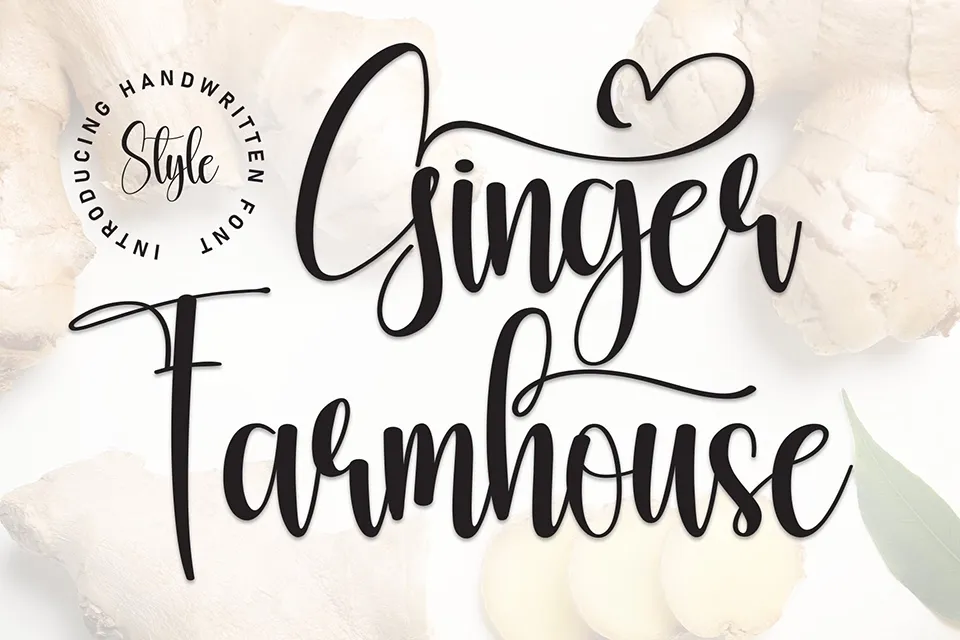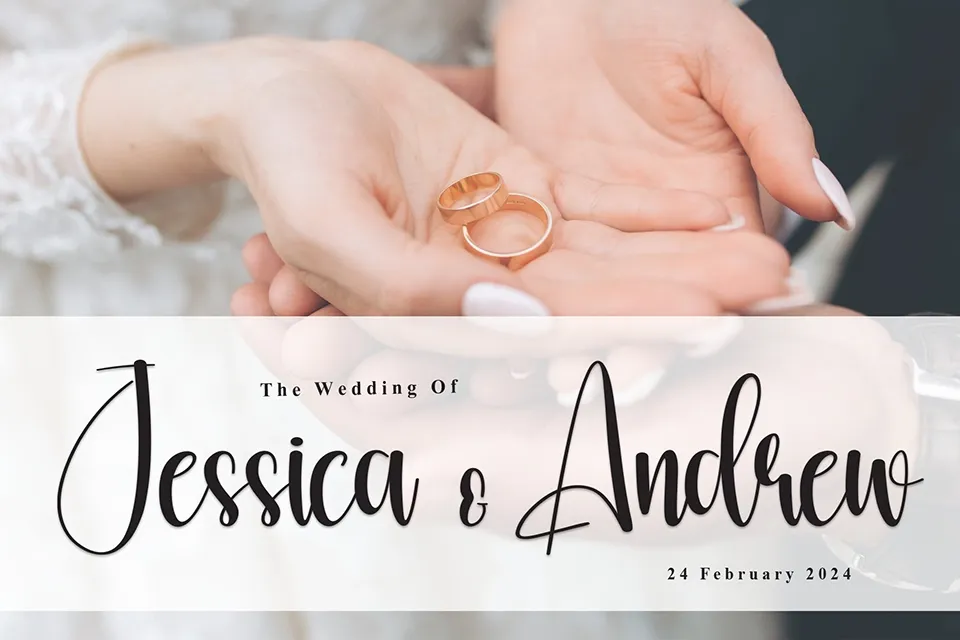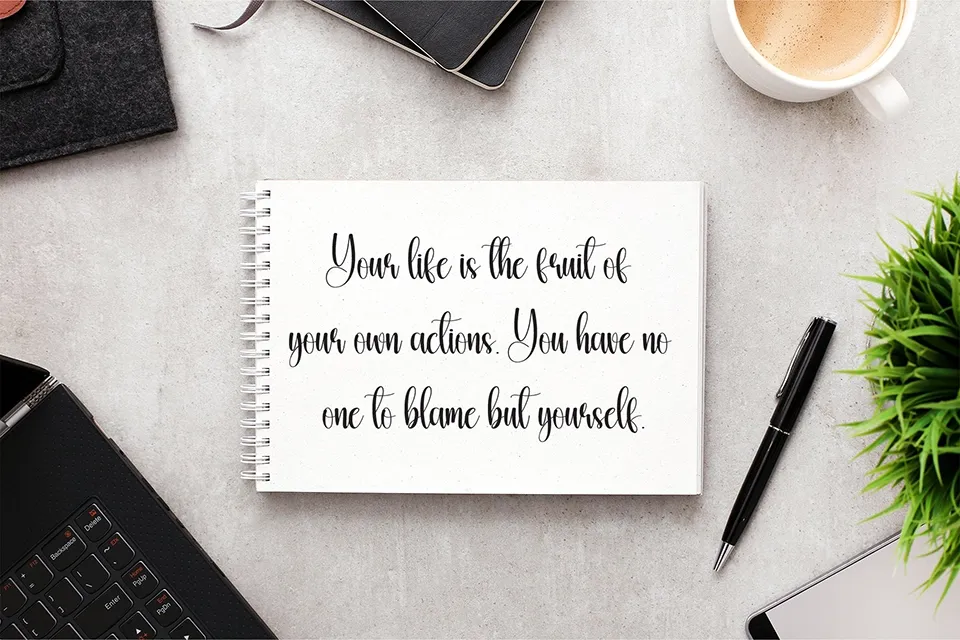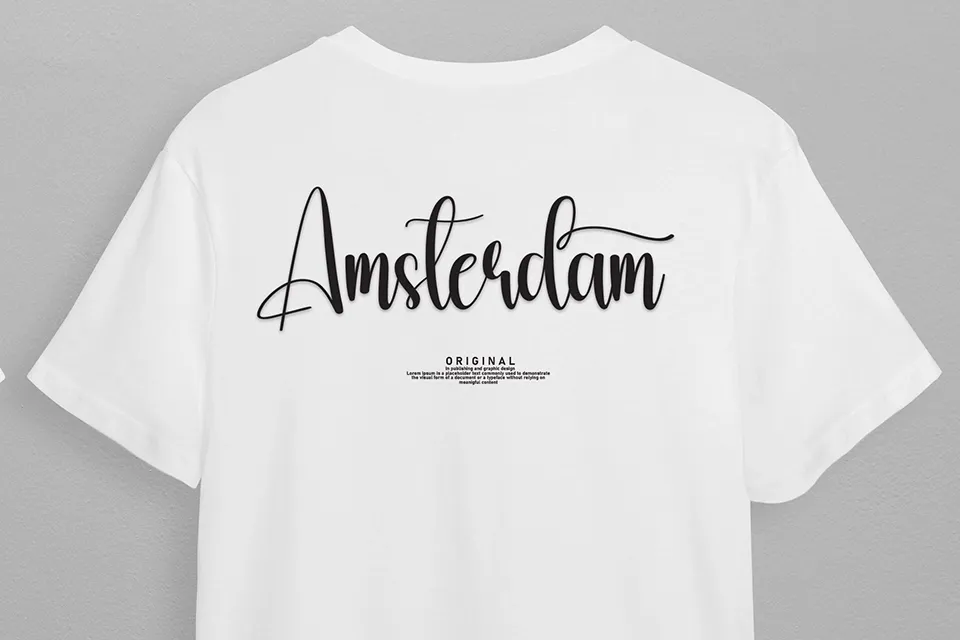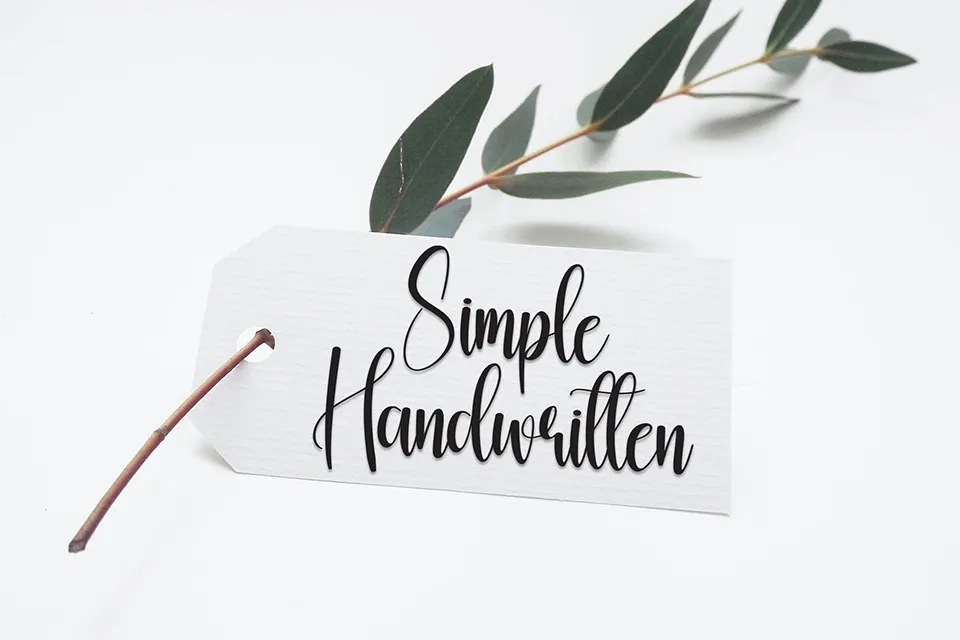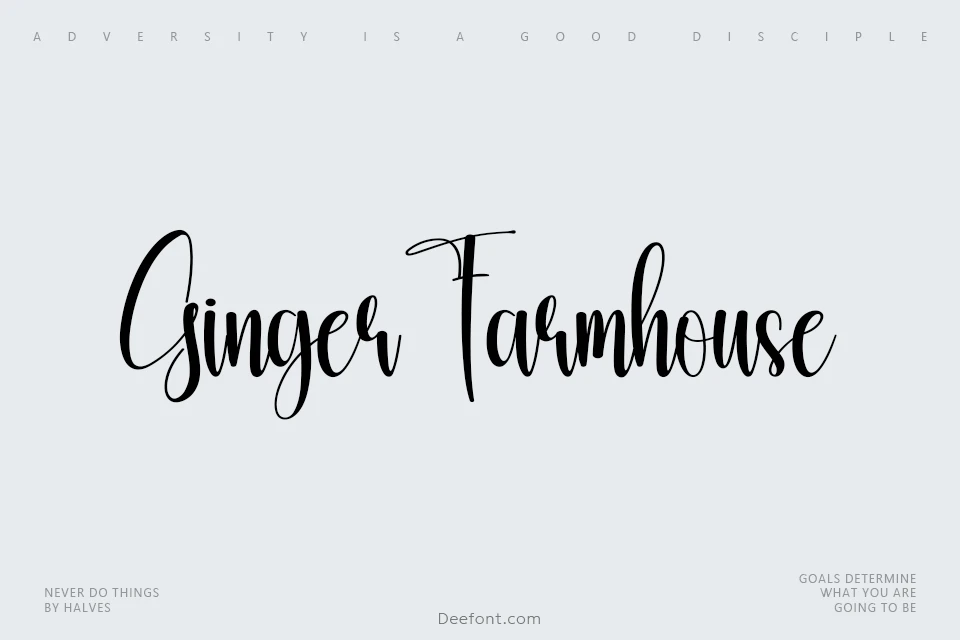
Ginger Farmhouse Font
Ginger Farmhouse Font is a beautiful handwritten script font that exudes an elegant and charming farmhouse style. Perfect for invitations, logos, branding, and creative projects, this font brings a touch of warmth and sophistication to any design. With extensive language support and stylish alternates, Ginger Farmhouse Font is ideal for anyone seeking a versatile and eye-catching script font for both personal and professional use.